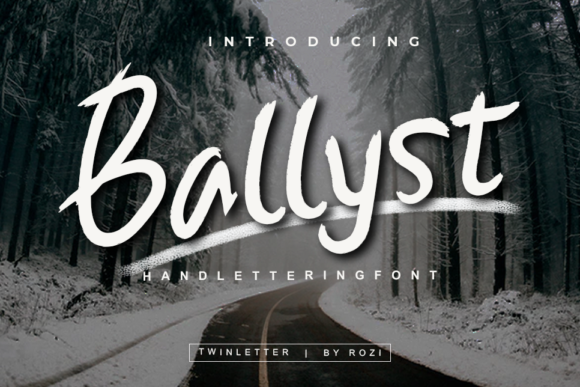
Prepare to fall head over heels for Ballist Font, the enchanting script that will transform your creative endeavors into masterpieces!
With its effortlessly relaxed and friendly charm, this handwritten font is the perfect choice for expressing your individuality. Each letter flows gracefully, exuding a casual elegance that will capture hearts and imaginations.
Whether you're creating heartfelt messages, designing whimsical invitations, or adding a touch of magic to your DIY projects, Ballist Font is your passport to a world of endless possibilities. Its versatility knows no bounds, making it the ideal companion for any occasion or project.